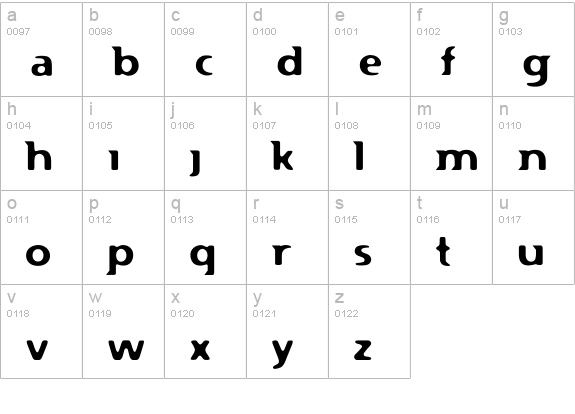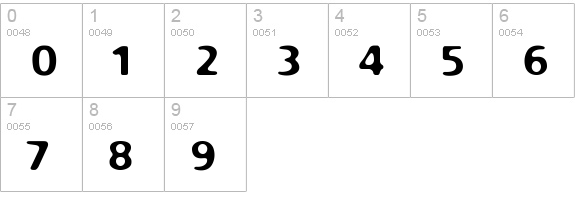
Flexure Font Details
Introducing Flexure font, a sleek and modern typeface that is perfect for adding a touch of sophistication to any design project. With its elegant curves and clean lines, Flexure font exudes a sense of style and professionalism. This versatile font is suitable for a wide range of applications, from branding and marketing materials to invitations and social media graphics. Its unique design makes it stand out from the crowd and grab the attention of your audience. The best part? Flexure font is completely free to download at FontsMarket.com. Whether you're a designer looking to add a new font to your collection or a business owner in need of a fresh look for your branding, Flexure font is the perfect choice. Download it today and elevate your designs to the next level.